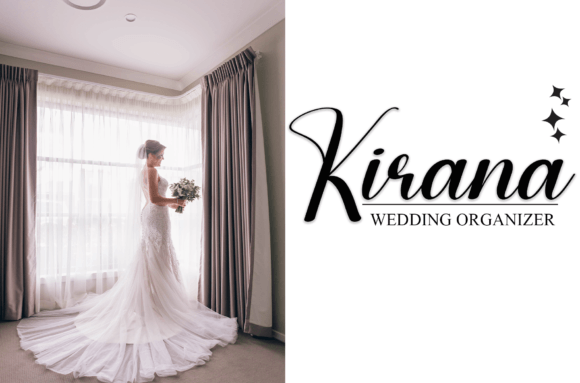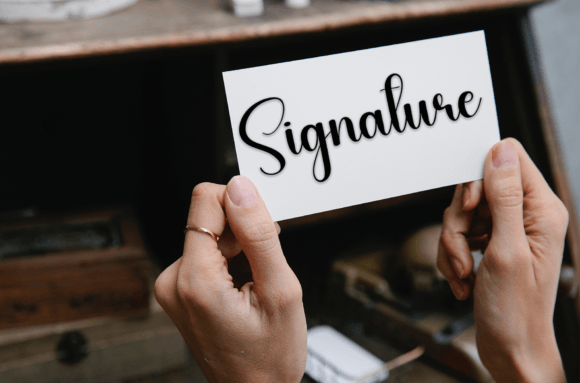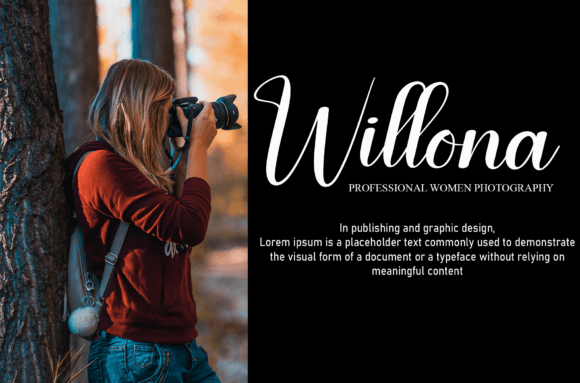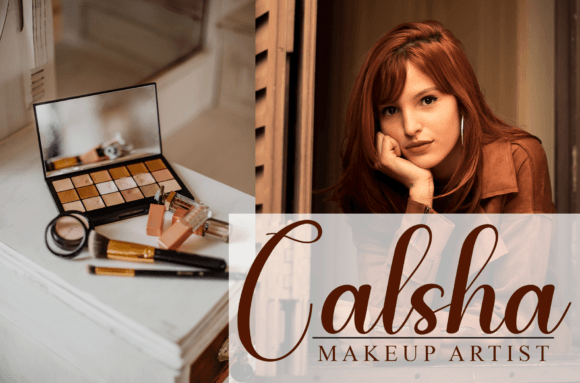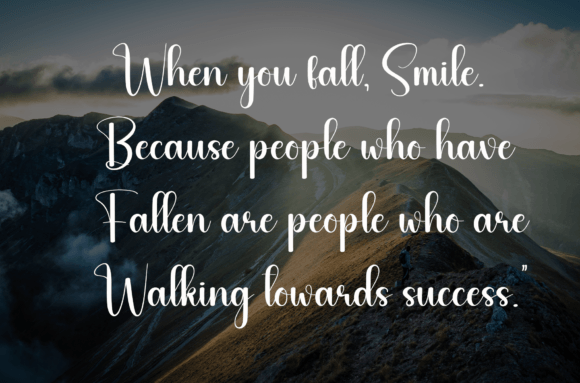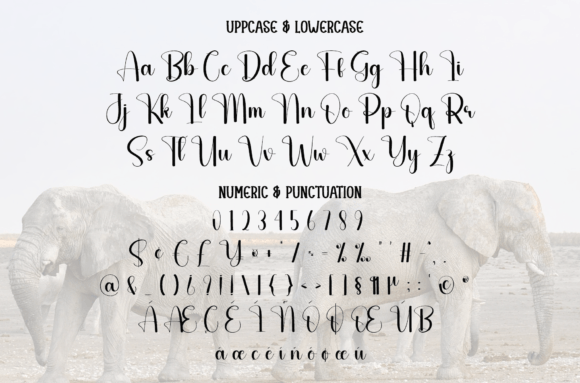
The Great Font: A Sweet and Friendly Handwritten Delight
I’ll never forget the time I was working on a wedding invitation project, and my client asked for a font that was “fun, yet elegant.” I scoured the internet, trying out font after font, but nothing seemed quite right. That was until I stumbled upon Great, a sweet and friendly handwritten font that instantly captured the tone I was looking for. In this article, I’ll share my love for Great, its features, and how to make the most of it in your designs.
An Honest Review of Great Font
What I Love About Great Font
- ✨ Fresh and neat handwriting style that’s perfect for a variety of design projects
- ✅ Easy to read, even at smaller font sizes
- 💕 Sweet and friendly tone that’s ideal for wedding invitations, cards, and other celebratory designs
- 🎨 Highly versatile and can be used for both digital and print projects
While Great is an excellent font, it’s not perfect. Here are a few things to keep in mind:
- ⚠️ Some letters may not have perfect symmetry, which can be noticeable at larger font sizes
- 🤔 Limited availability of stylistic alternates, which may limit its use in certain design projects
The Story Behind Great Font
Great was designed by a talented type designer who wanted to create a font that was both fun and elegant. Inspired by traditional handwriting styles, Great is a modern take on classic script fonts. With its sweet and friendly tone, Great is perfect for designers who want to add a touch of personality to their work.
Q: Is Great Font suitable for body text?
A: While Great Font is beautiful and elegant, it’s best suited for headlines and short paragraphs. For body text, you may want to choose a font that’s more legible and easier to read.